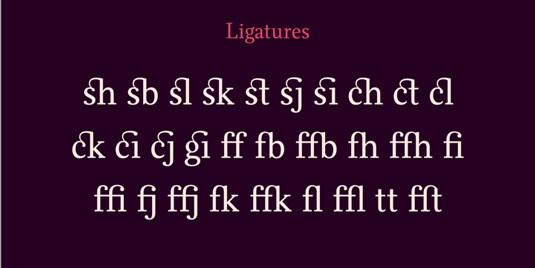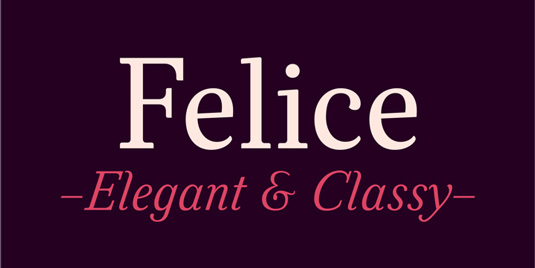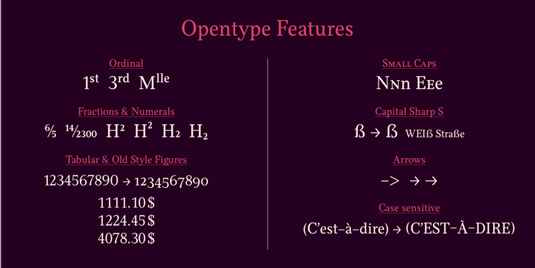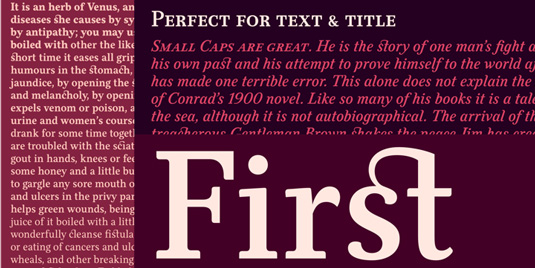
Font of the day: Felice
Felice by Nico Inosanto
This elegant serif font family Felice was created by Swedish graphic and type designer Nico Inosanto. It consists of 10 styles, from Light to Black with their italics. Each font includes OpenType features such as proportional figure, tabular figures, numerators, superscript, denominators, scientific inferiors, subscript, ordinals, fractions and many ligatures. The fonts also have an extended characters set to support Central, Eastern and Western European languages.